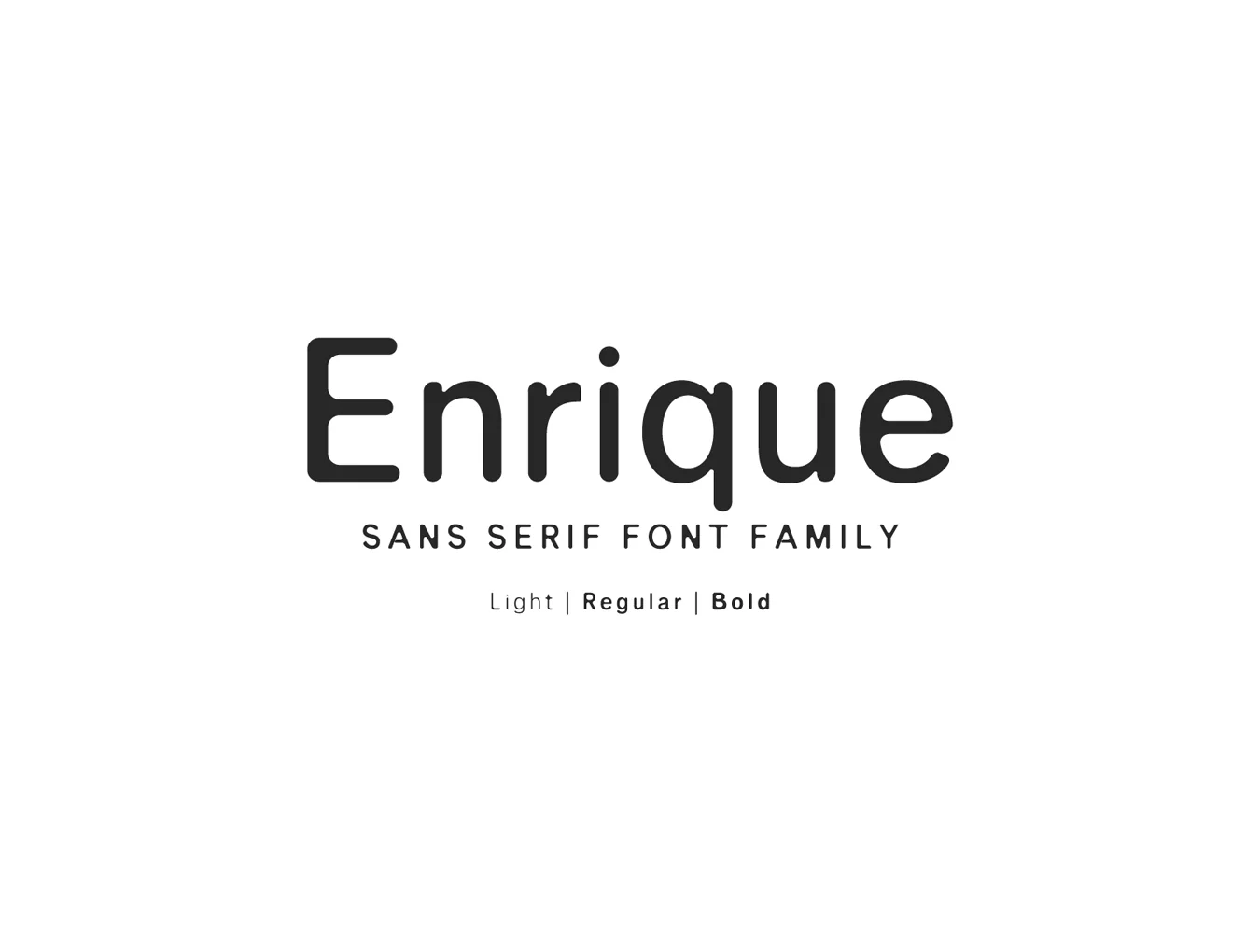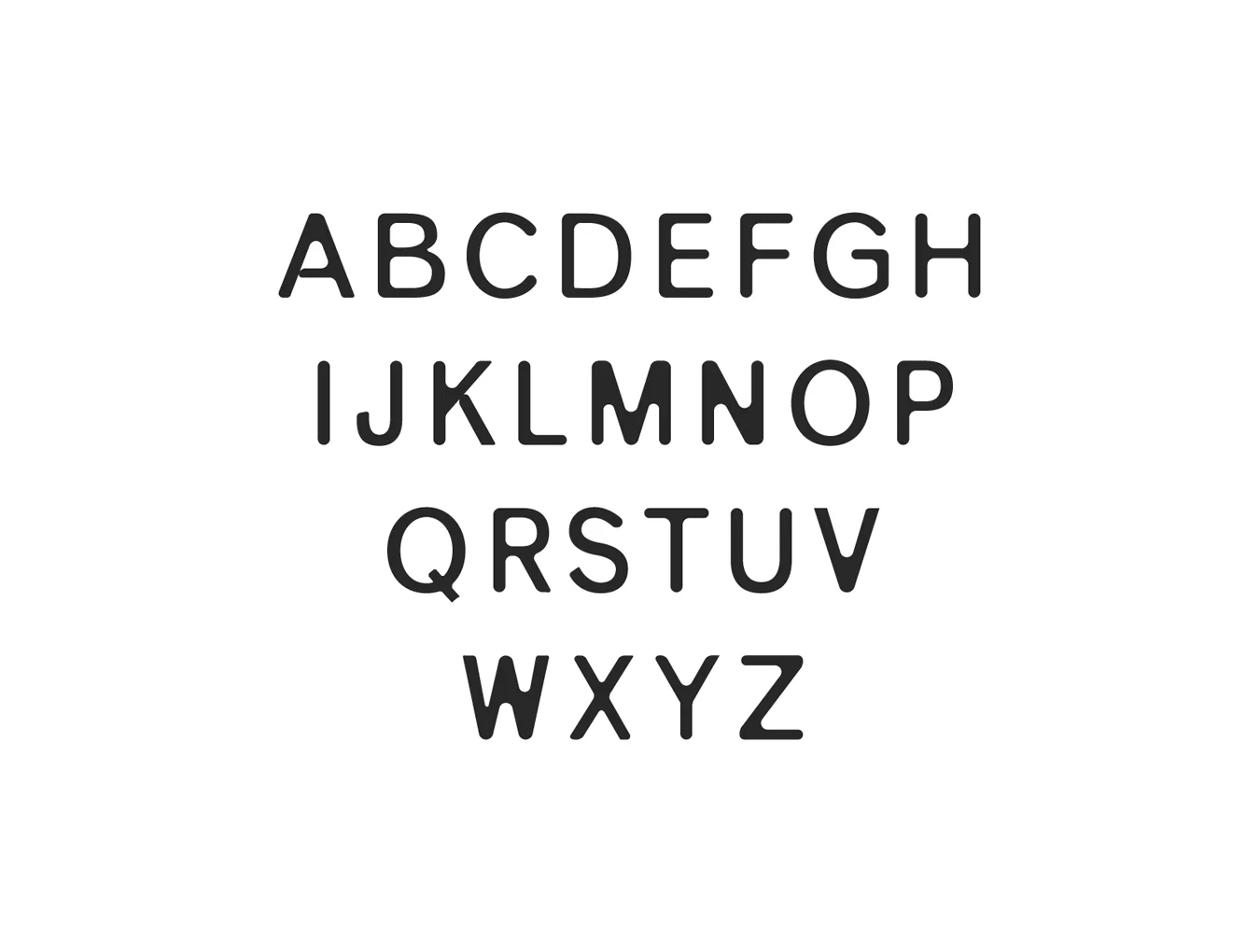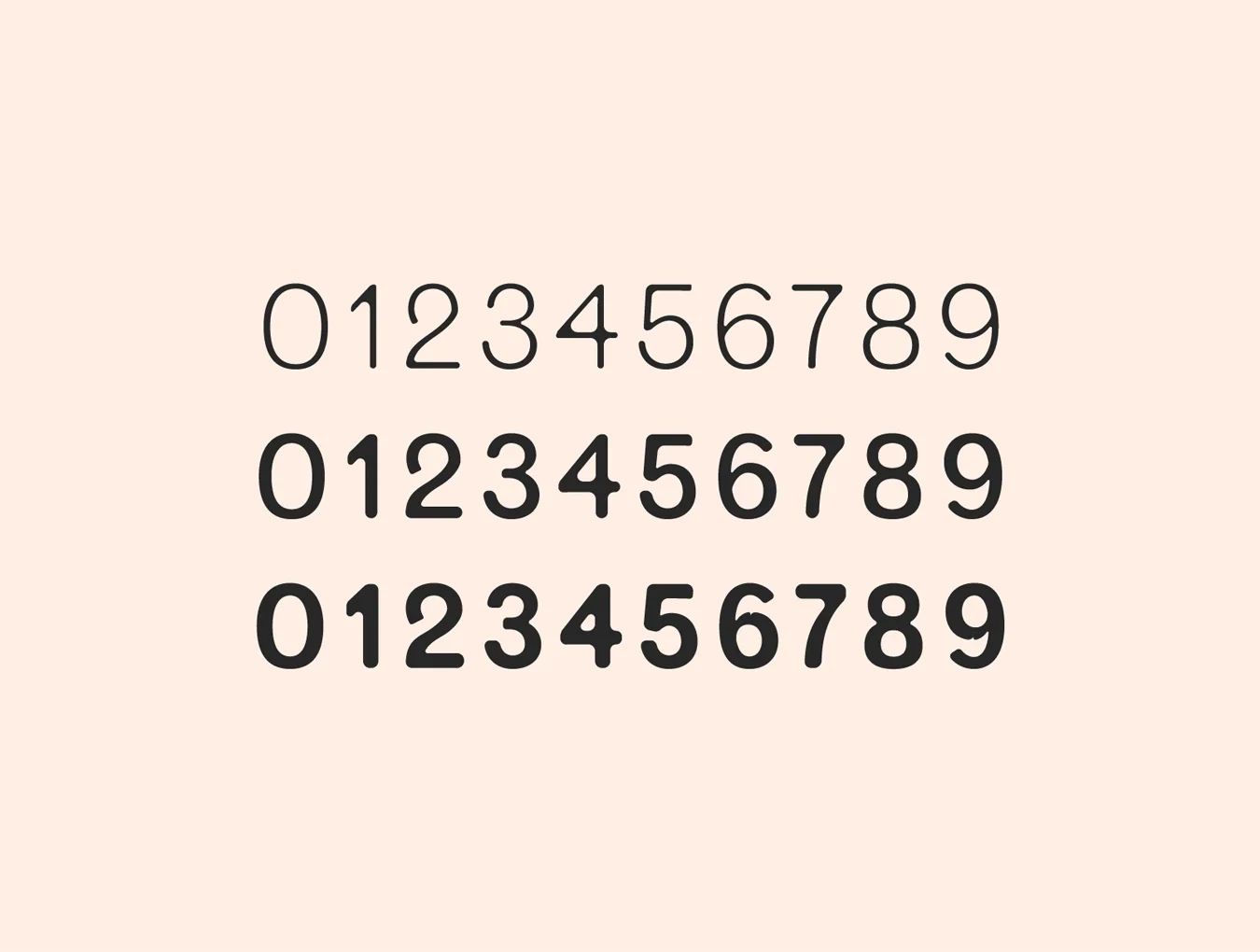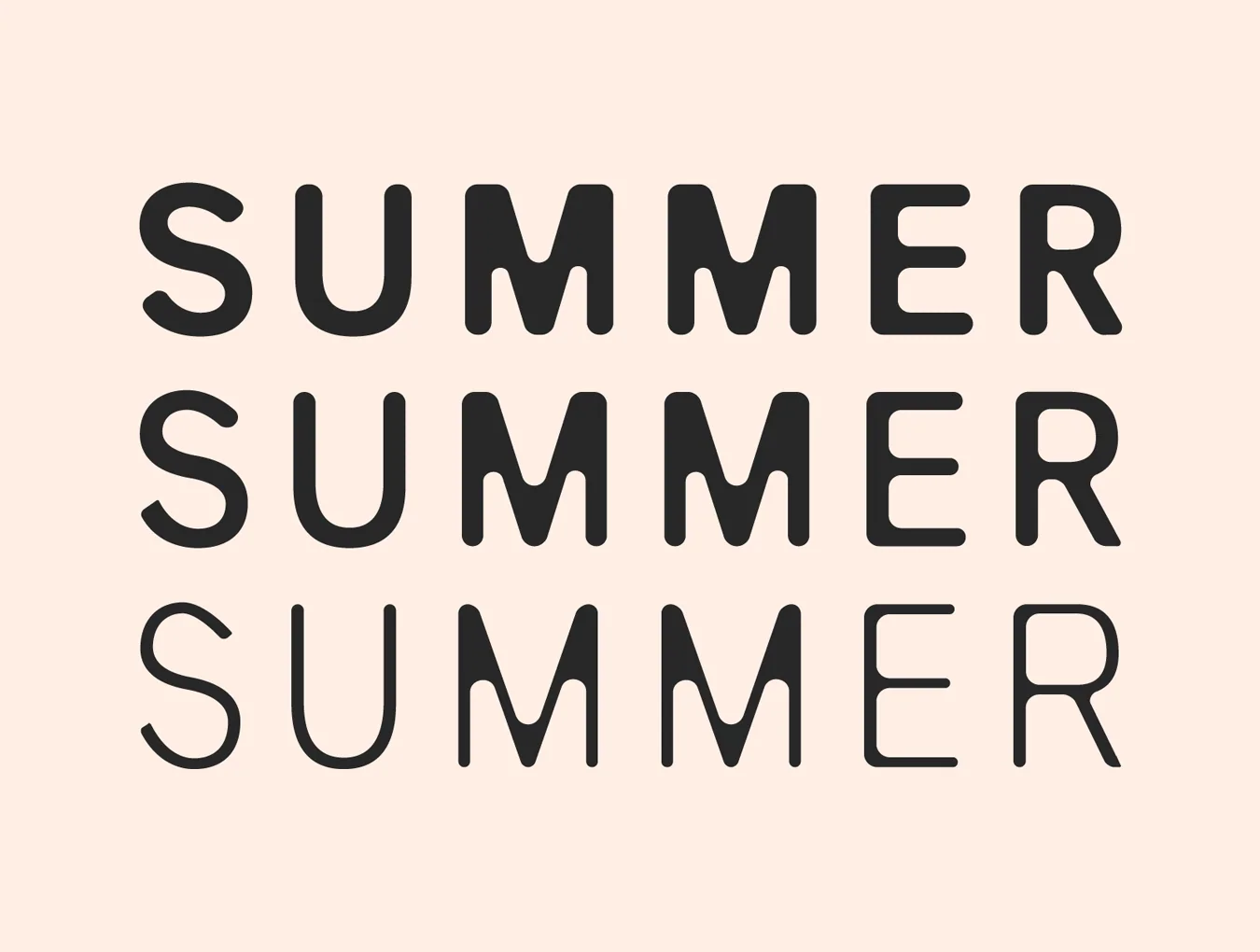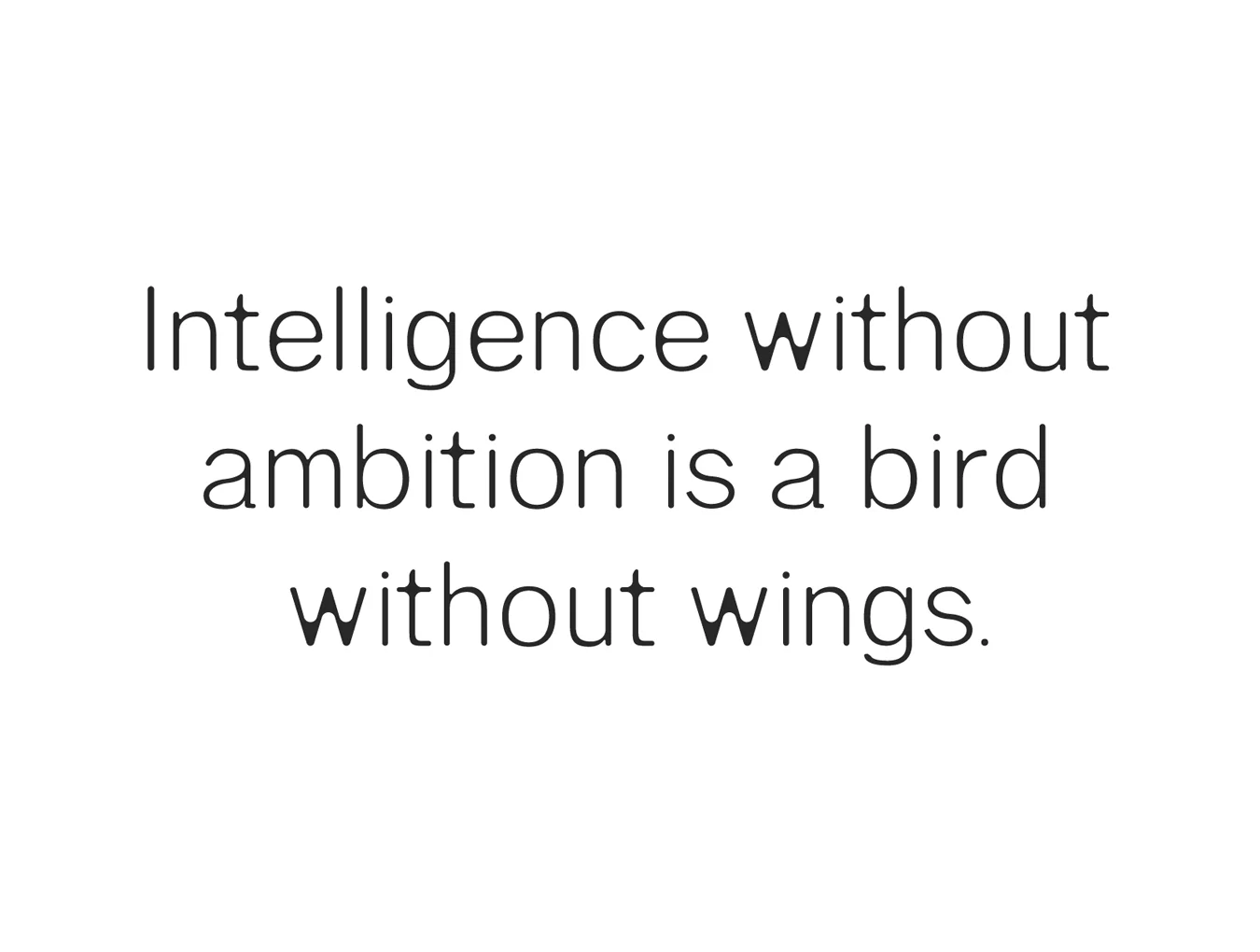
Enrique Sans Font Family
Enrique offers a polished, softly curved sans serif type family.
Clean sans serif font family
Regular, thin, and bold styles
Enrique is a smooth, rounded sans serif family with three weights. Ideal for logos, body text, slides, posters, magazines, notices, titles, business cards, web layouts, invites, headers, branding, and business designs. Use all caps with generous spacing for an elegant feel, or mix upper and lowercase for a timeless style.